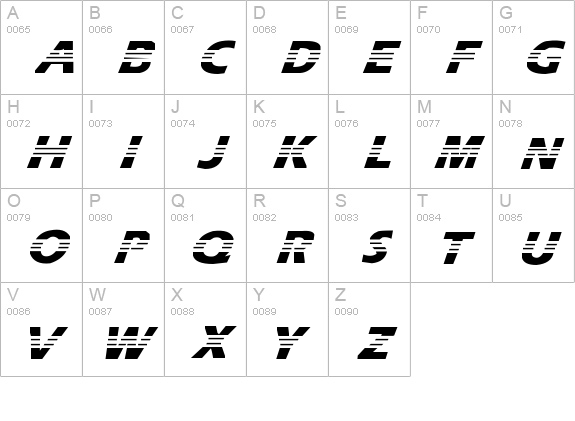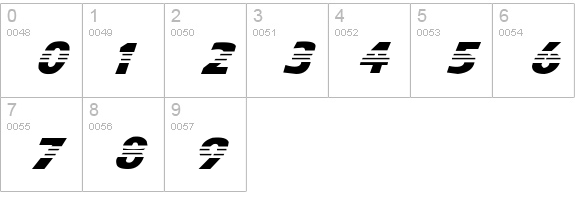
Adidas Sport Font Details
Introducing Adidas Sport font, a sleek and modern typeface designed for sports-related projects and athletic branding. This dynamic font exudes energy and movement, making it perfect for capturing the spirit of competition and drive. With its bold strokes and sharp angles, Adidas Sport font is sure to make a statement and command attention. What's even better is that Adidas Sport font is available for free download at FontsMarket.com. So whether you're creating posters for a sporting event, designing team jerseys, or working on a fitness brand, this versatile font will add a touch of athleticism and style to your designs. Don't miss out on the opportunity to elevate your projects with Adidas Sport font - download it now and let your creativity soar!